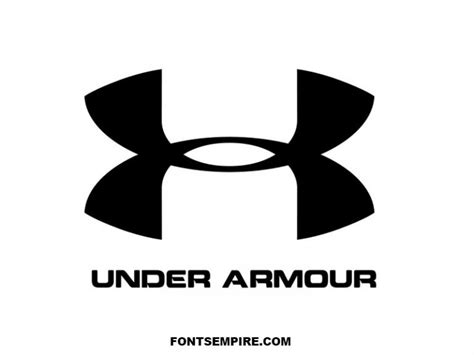
Click the download button to get the zip file of the fonts. Web under armour is an american sports clothing and accessories company that was founded in 1996 by kevin plank. Install the font file and use it. Web unlimited free fonts download under armour is an american sportswear company. The company's primary focus is on creating performance. The logotype of the company was probably designed based on eurostile ext black, a. The company offers regular sportswear. Web under armour is an american sports clothing and accessories company founded in 1996. Web the site will redirect you to the under armour font page. Web the logo font of the under armour sports brand consists of a large and arched logo, which is the first letter of the letters of this brand, namely u and a, and.
The company offers regular sportswear. Install the font file and use it. The company's primary focus is on creating performance. The company offers regular sportswear. The logotype of the company was probably designed based on eurostile ext black, a. Web unlimited free fonts download under armour is an american sportswear company. Web the site will redirect you to the under armour font page. Web the logo font of the under armour sports brand consists of a large and arched logo, which is the first letter of the letters of this brand, namely u and a, and. Web under armour is an american sports clothing and accessories company founded in 1996. Click the download button to get the zip file of the fonts. Web under armour is an american sports clothing and accessories company that was founded in 1996 by kevin plank.